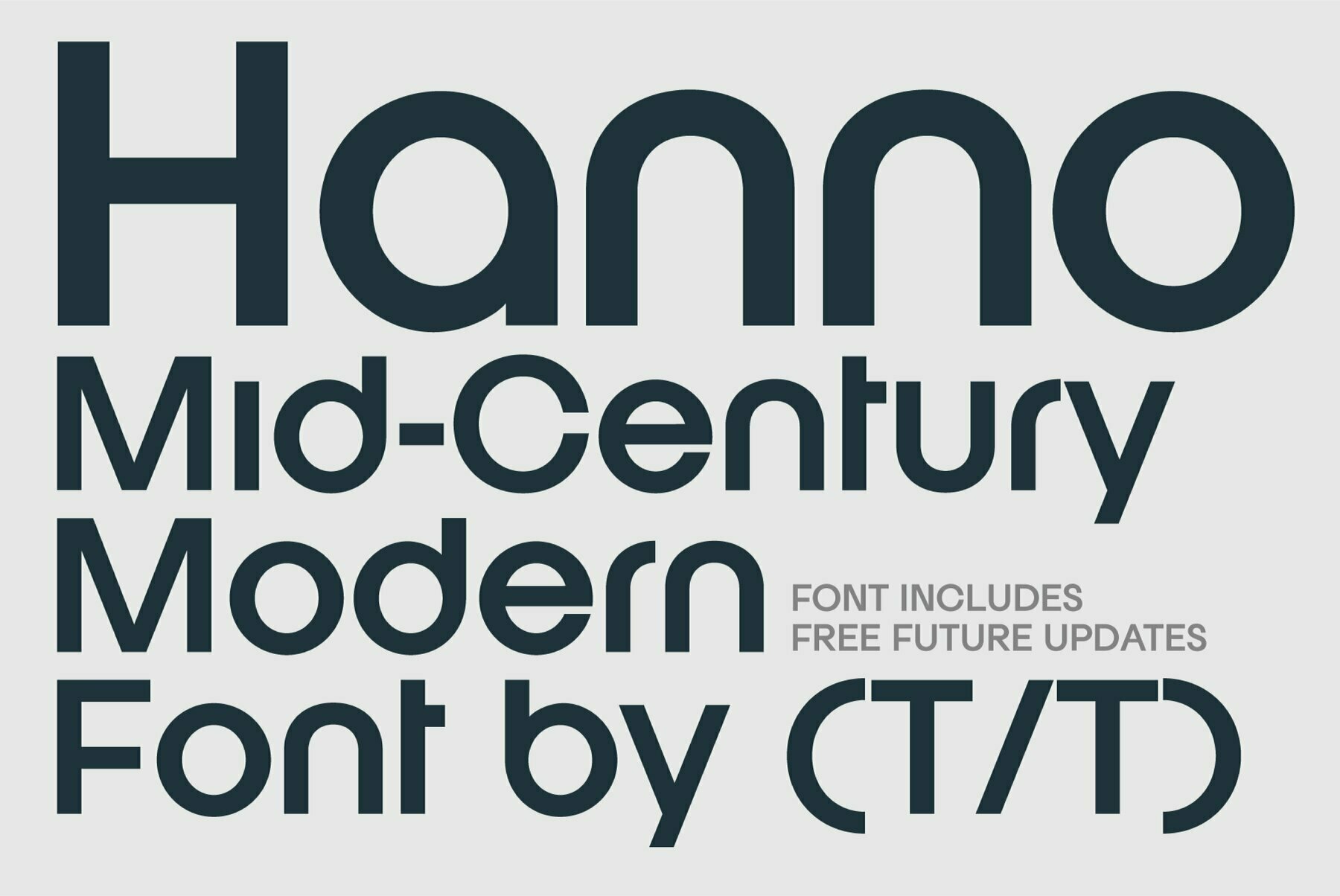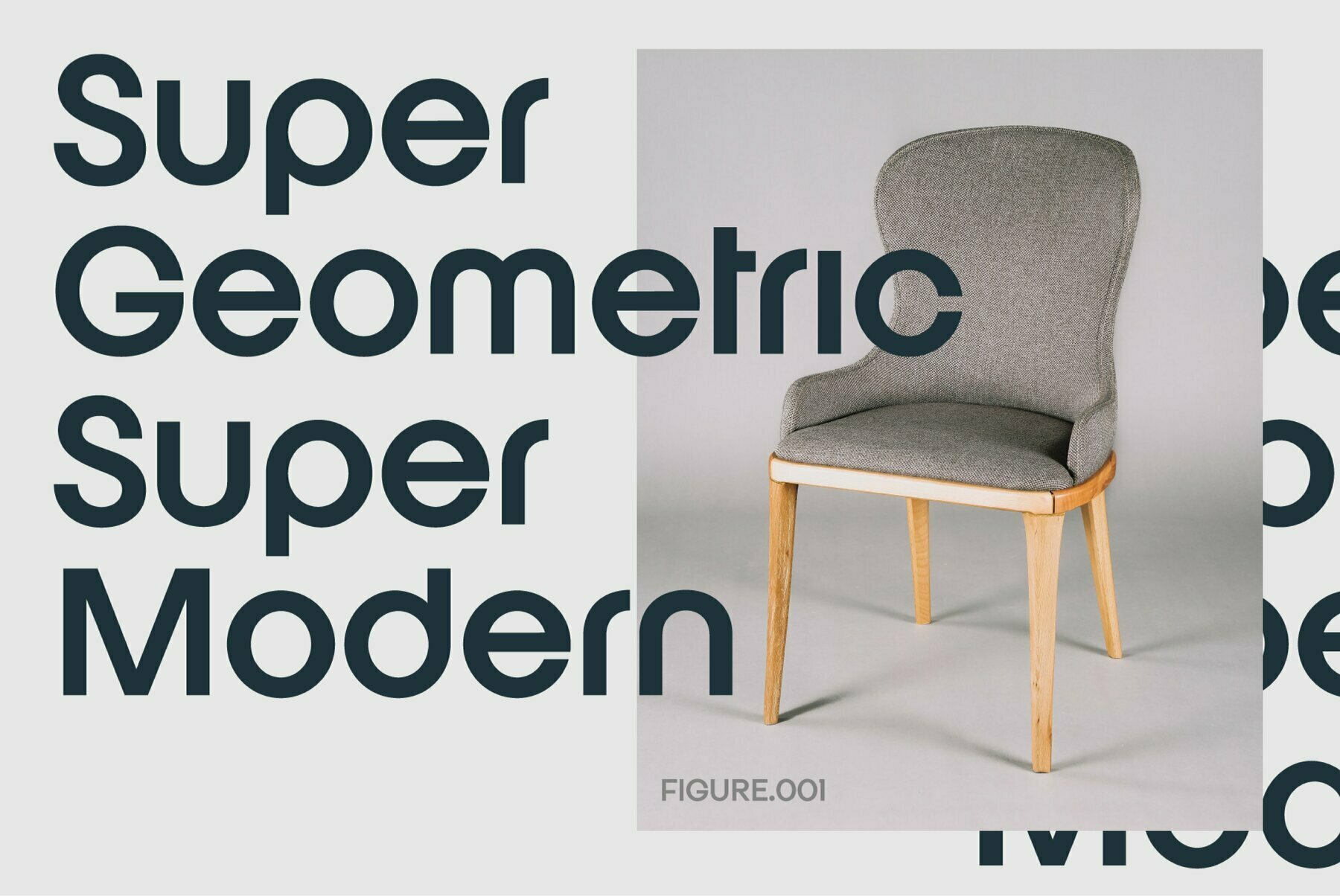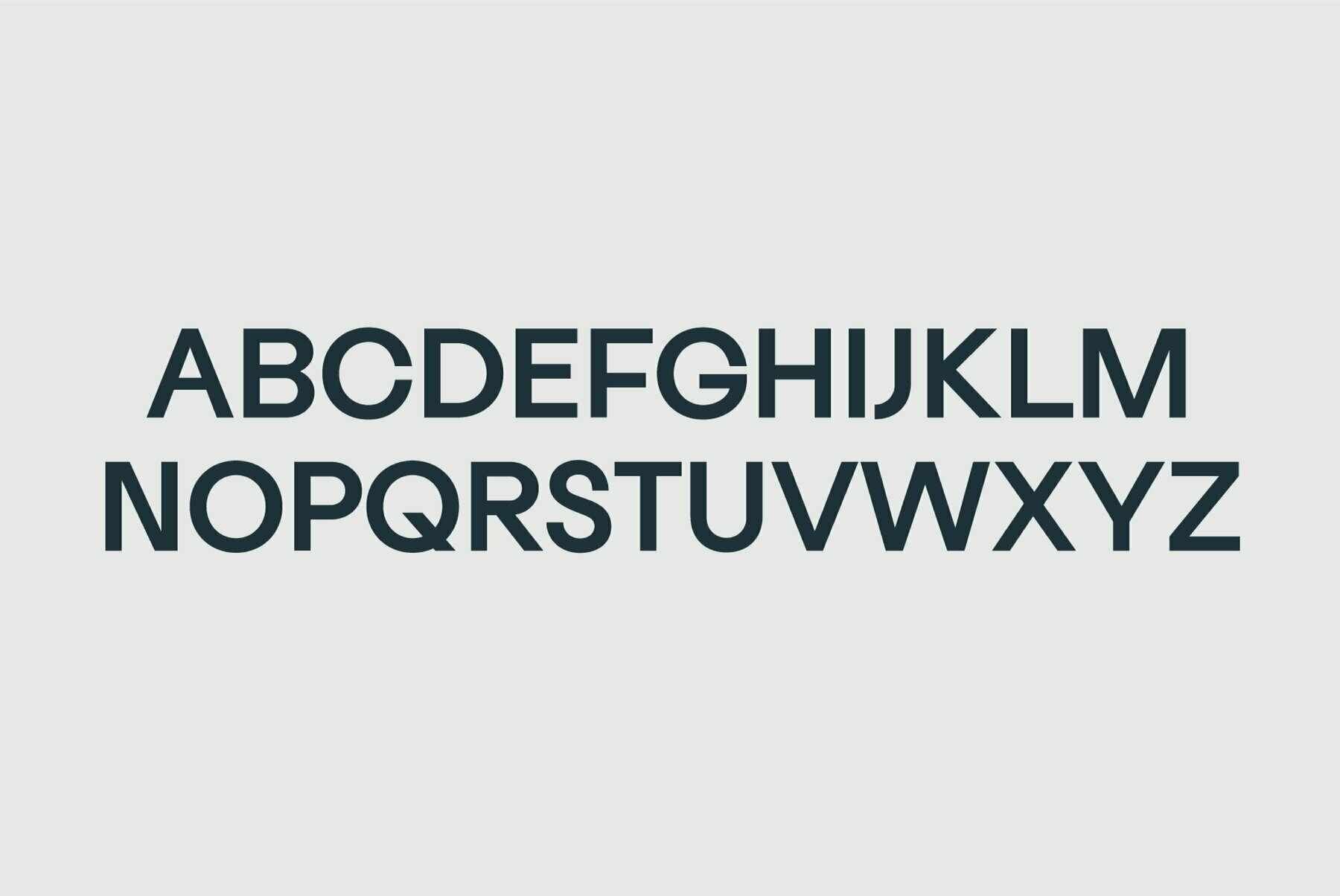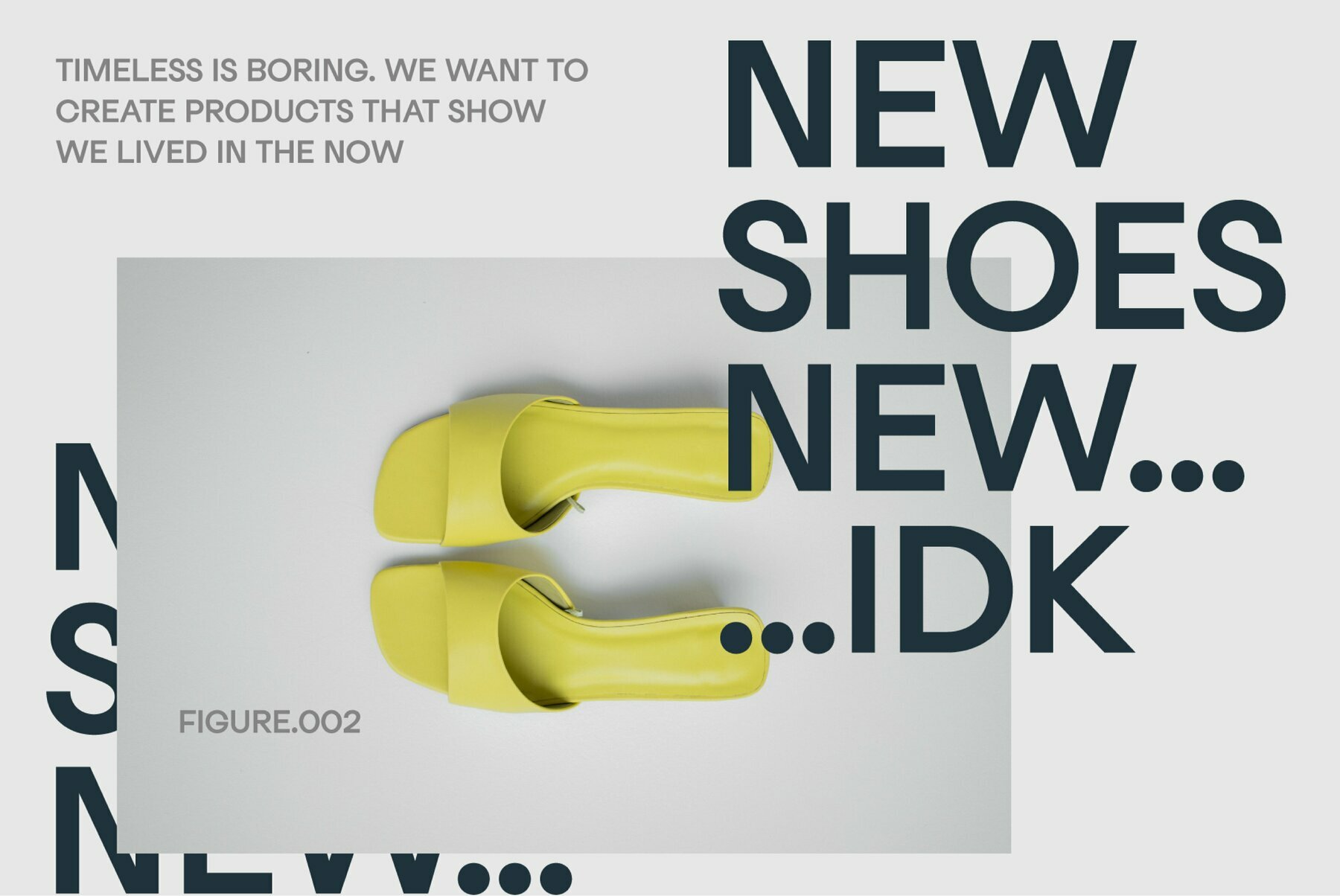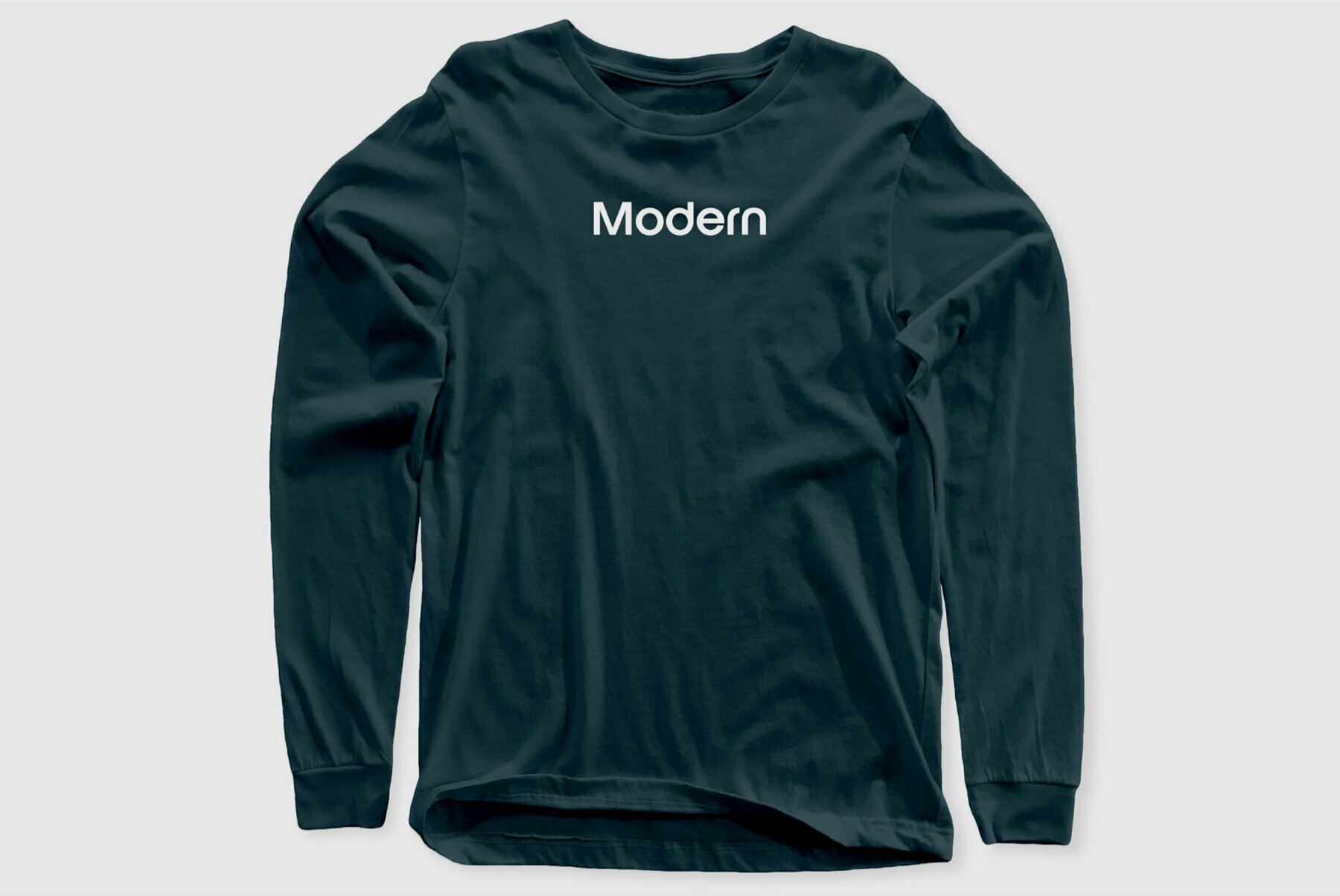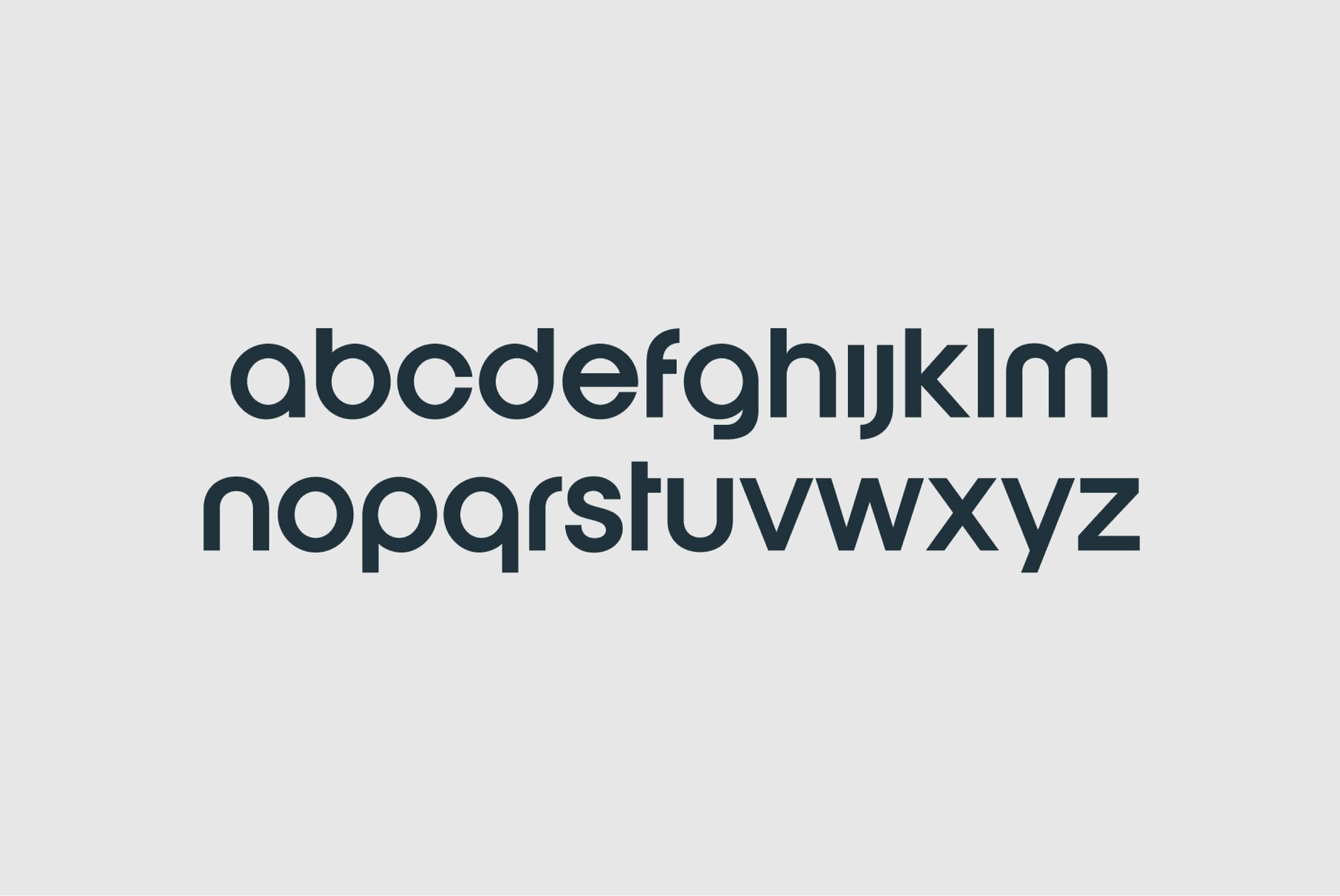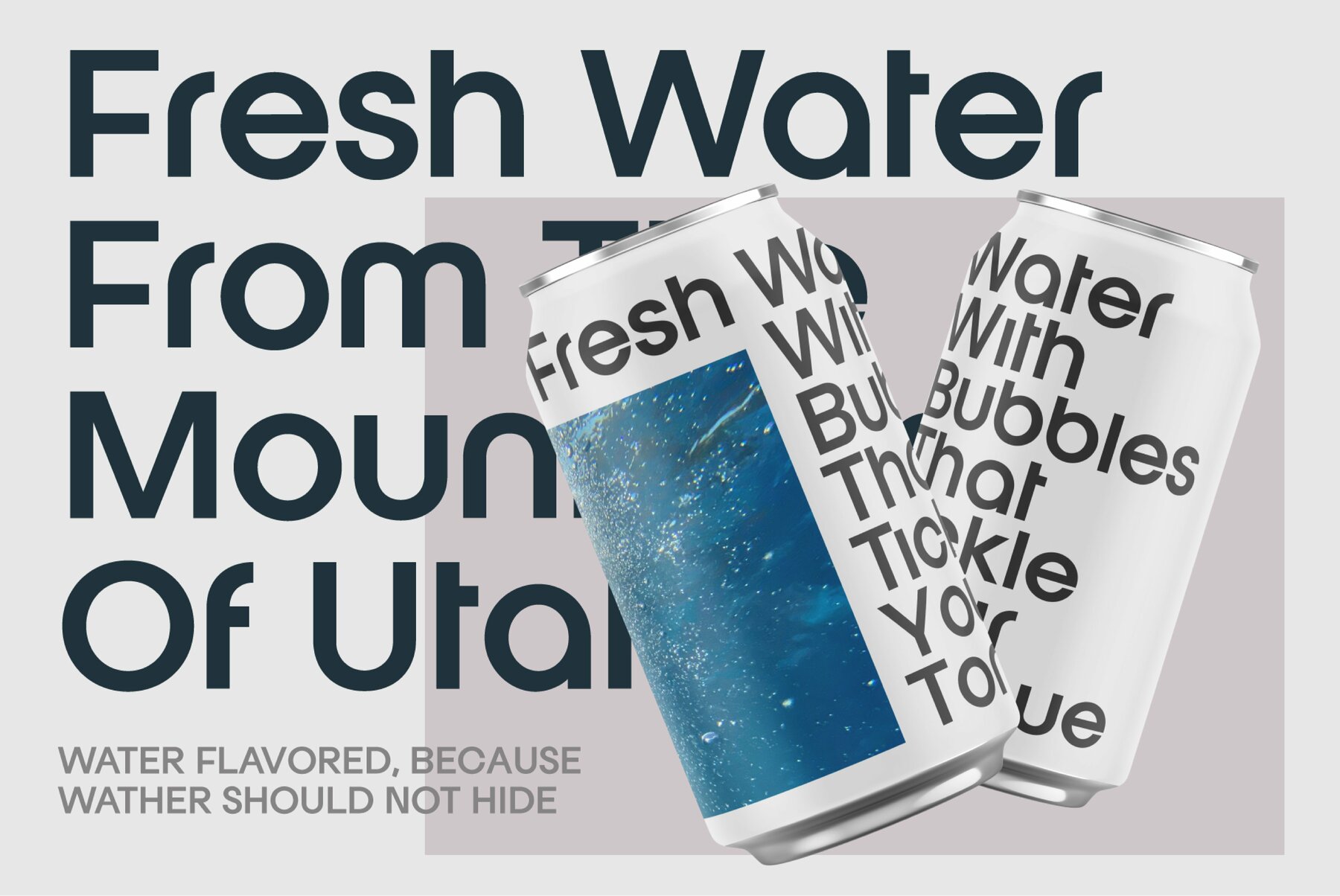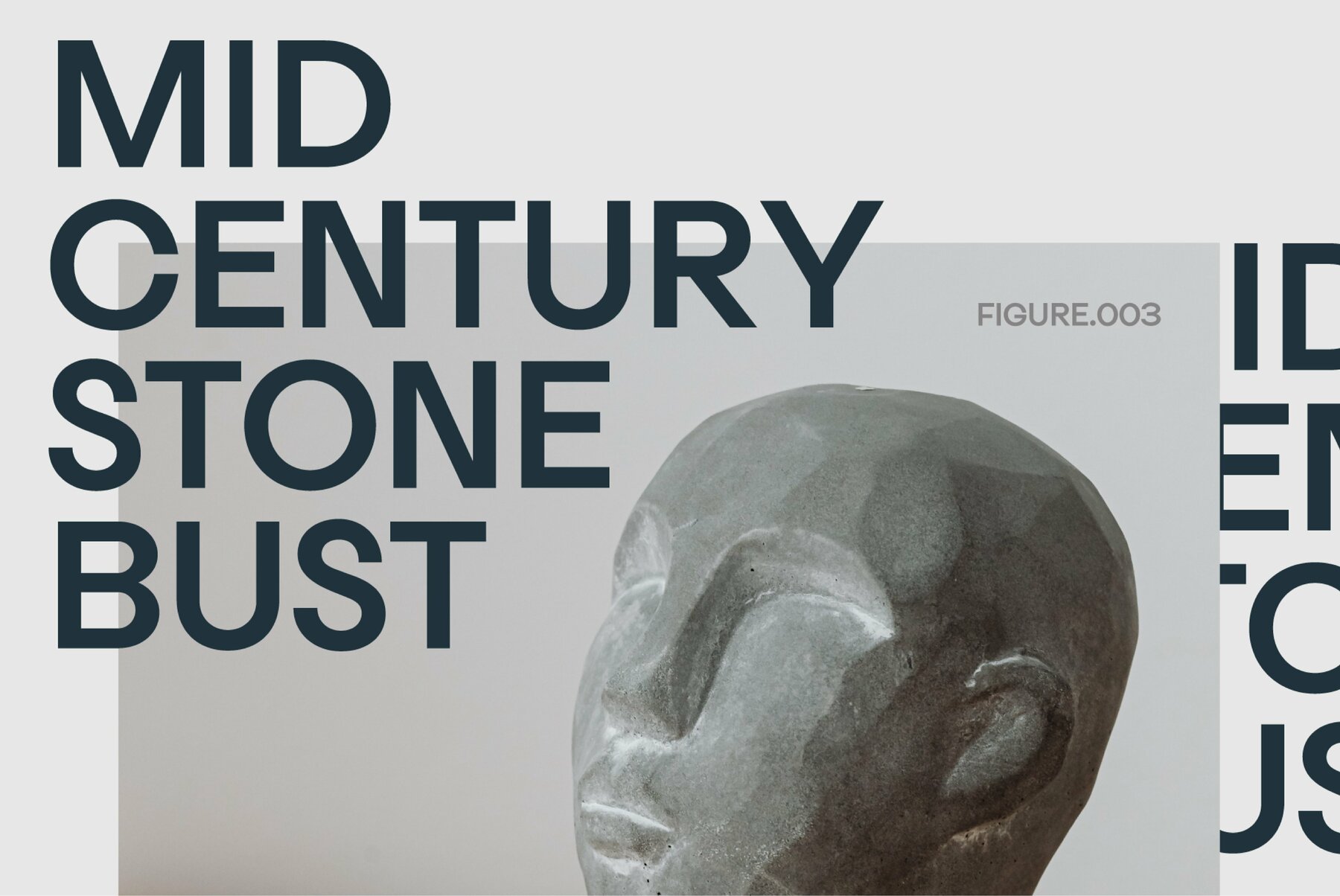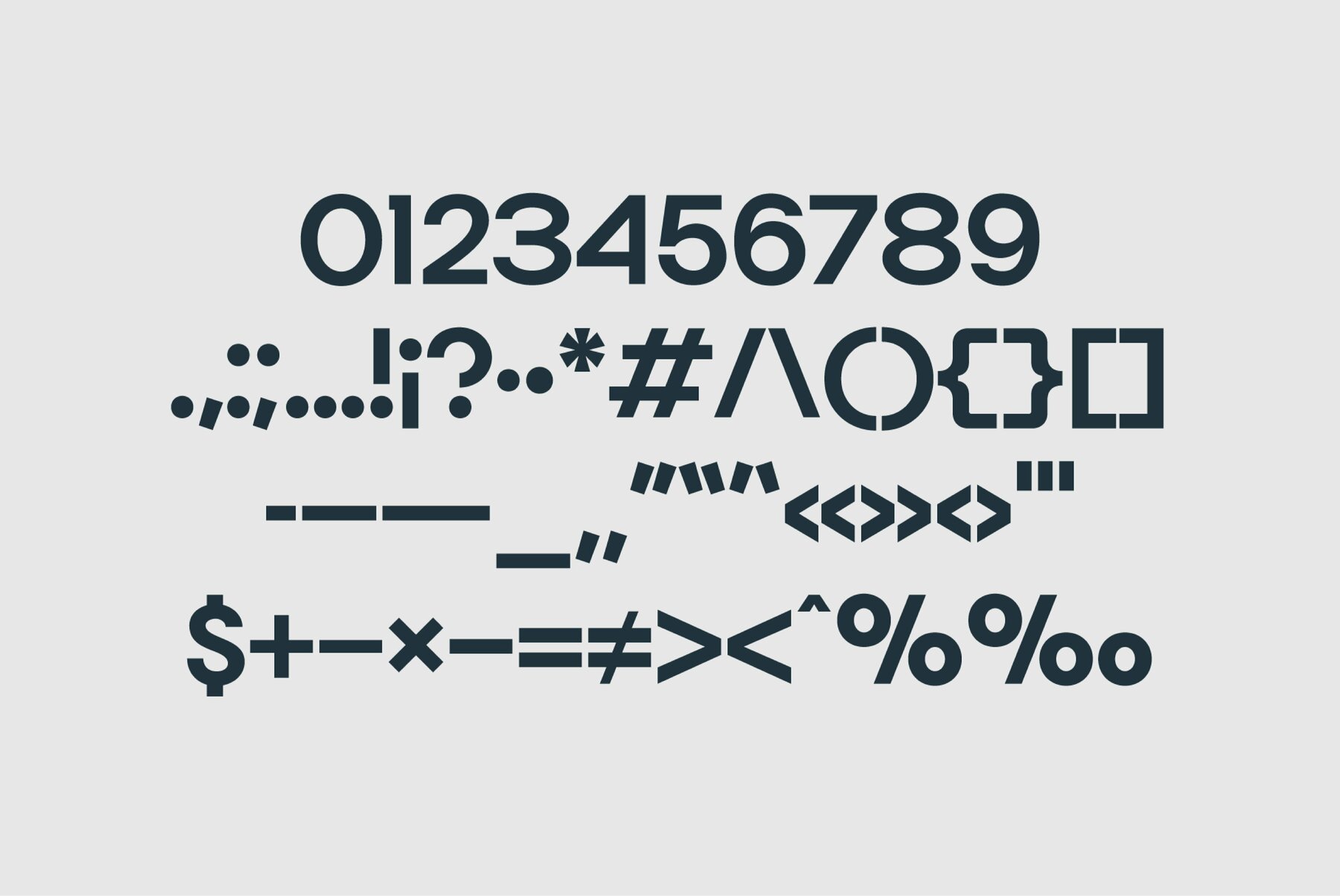
Hanno Font
Hanno Regular
Hanno is a minimalist Mid Century Modern sans serif font that works well for big bold headlines on posters, as well as small body copy. It has a super tall X-height and is extremely geometric. This font is one of the most versatile fonts in the That That library and is sure to be a go-to whenever you need a sans serif with personality. Use it for branding, products, Instagram, websites, magazines, and anything else you can think of.